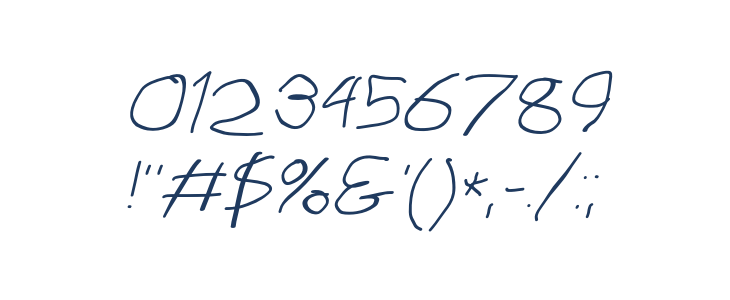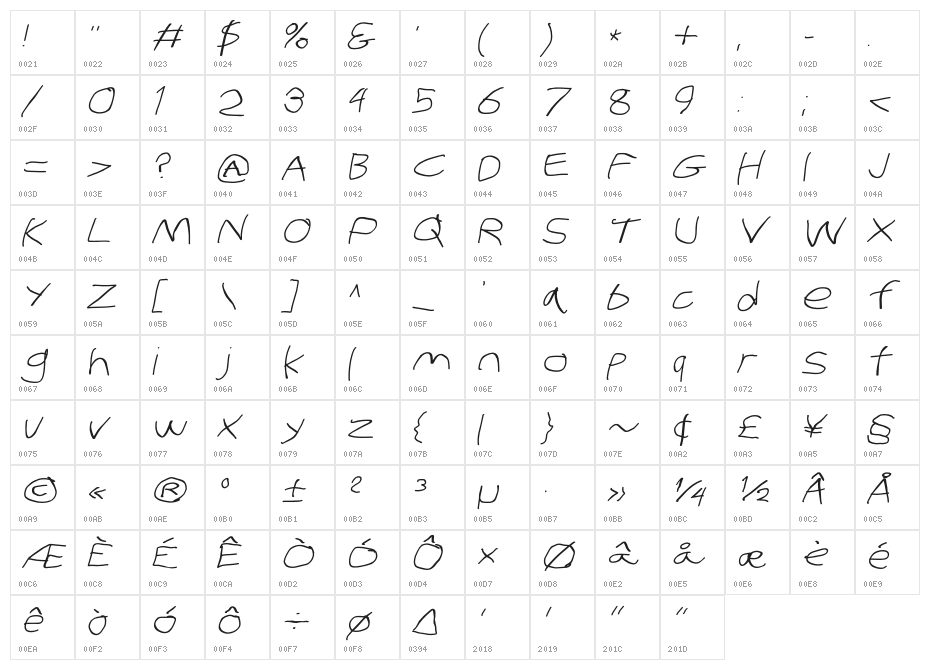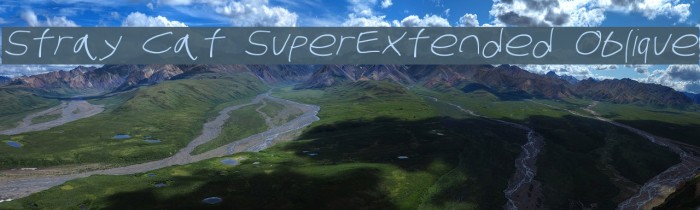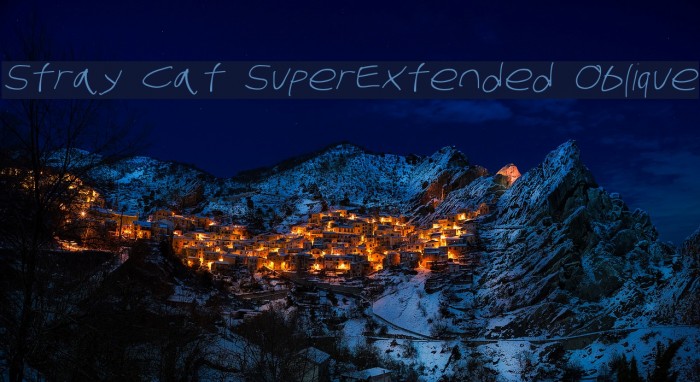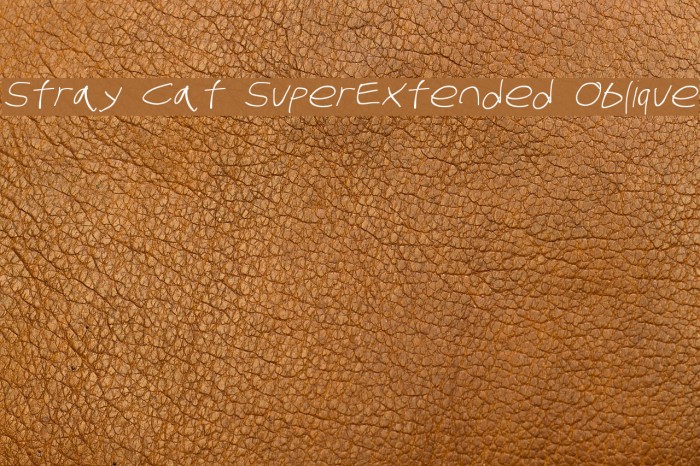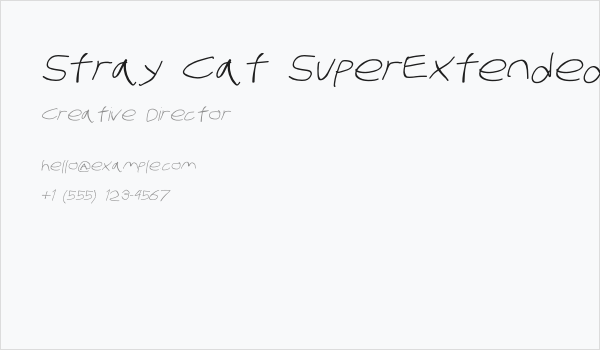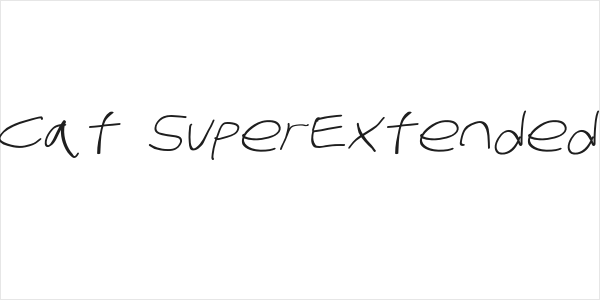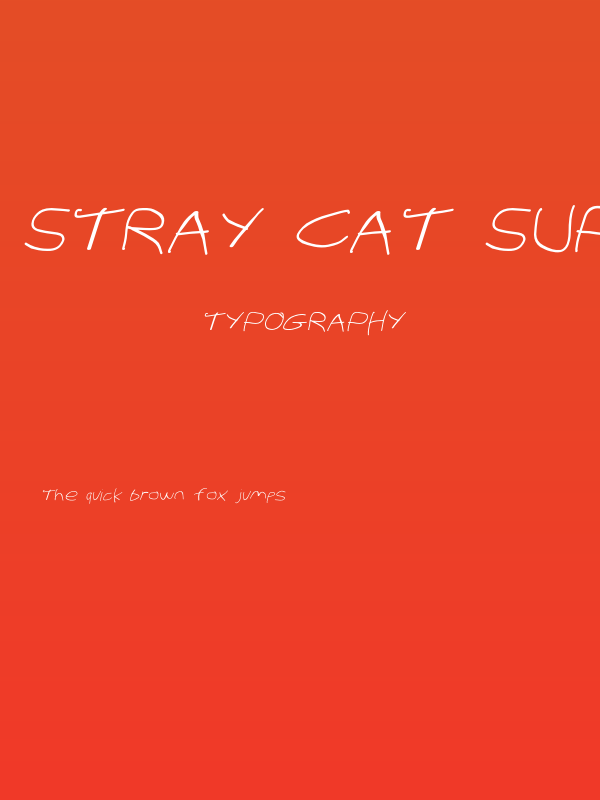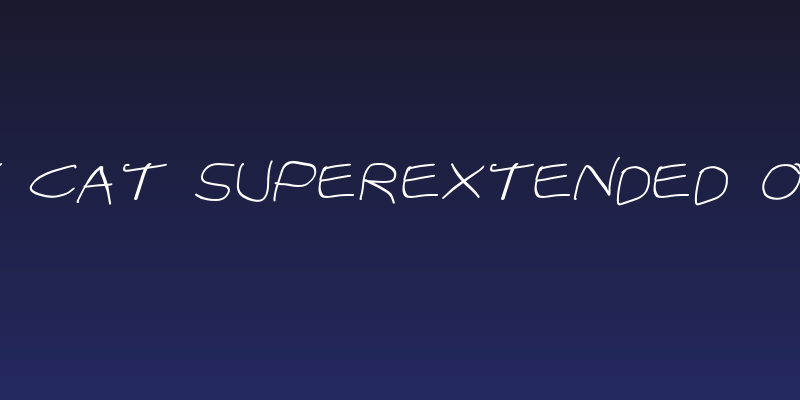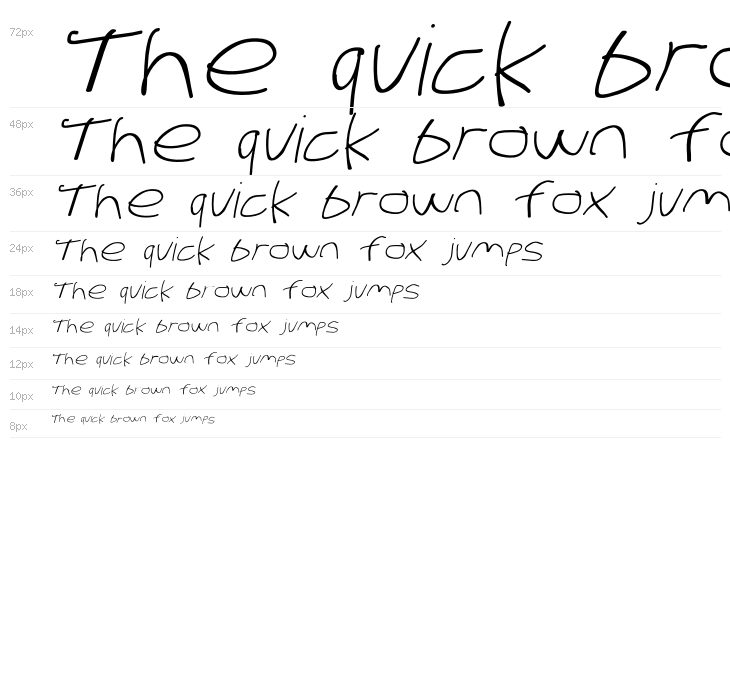
Stray Cat SuperExtended Oblique Font
Stray Cat SuperExtended Oblique Description
This font exhibits a playful and casual handwritten style, characterized by its fluid and slightly irregular strokes. The letters are elongated and slanted, giving an oblique appearance that adds a sense of movement and dynamism. The uppercase and lowercase letters maintain a consistent style, with rounded edges and a slightly whimsical touch. The numerals and special characters follow the same aesthetic, ensuring a cohesive look across all glyphs. This font's informal and relaxed vibe makes it suitable for creative and artistic projects.